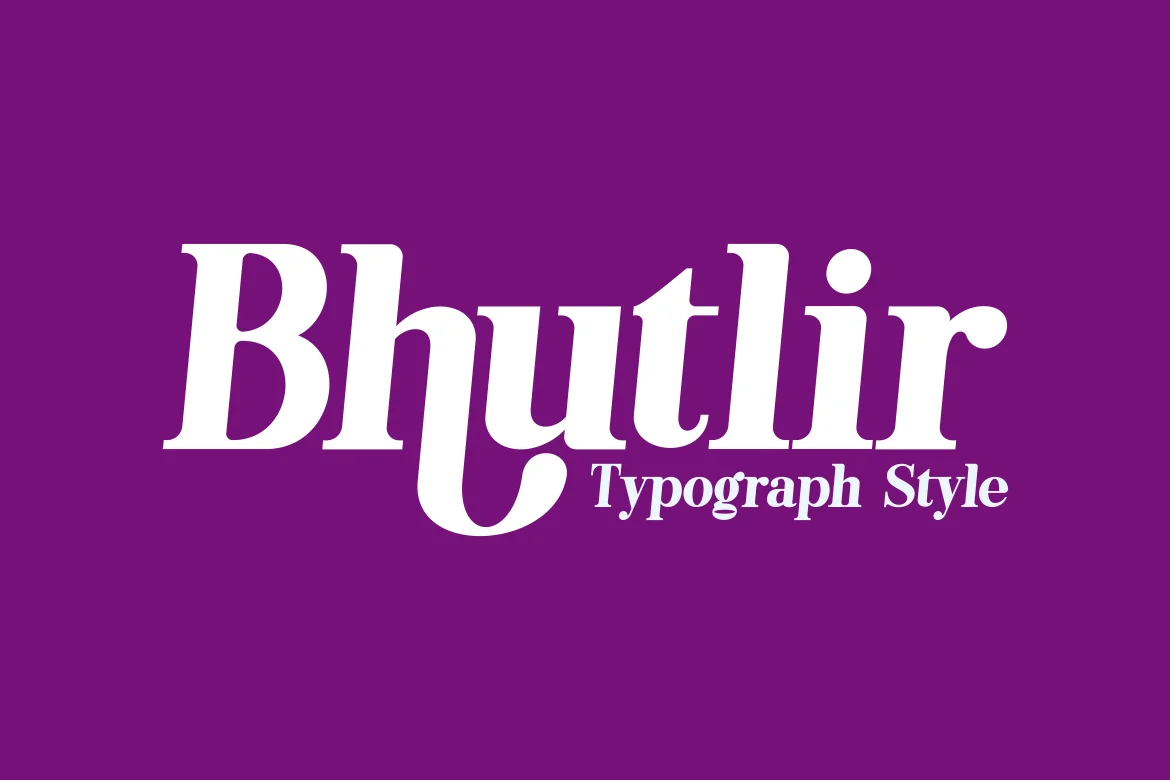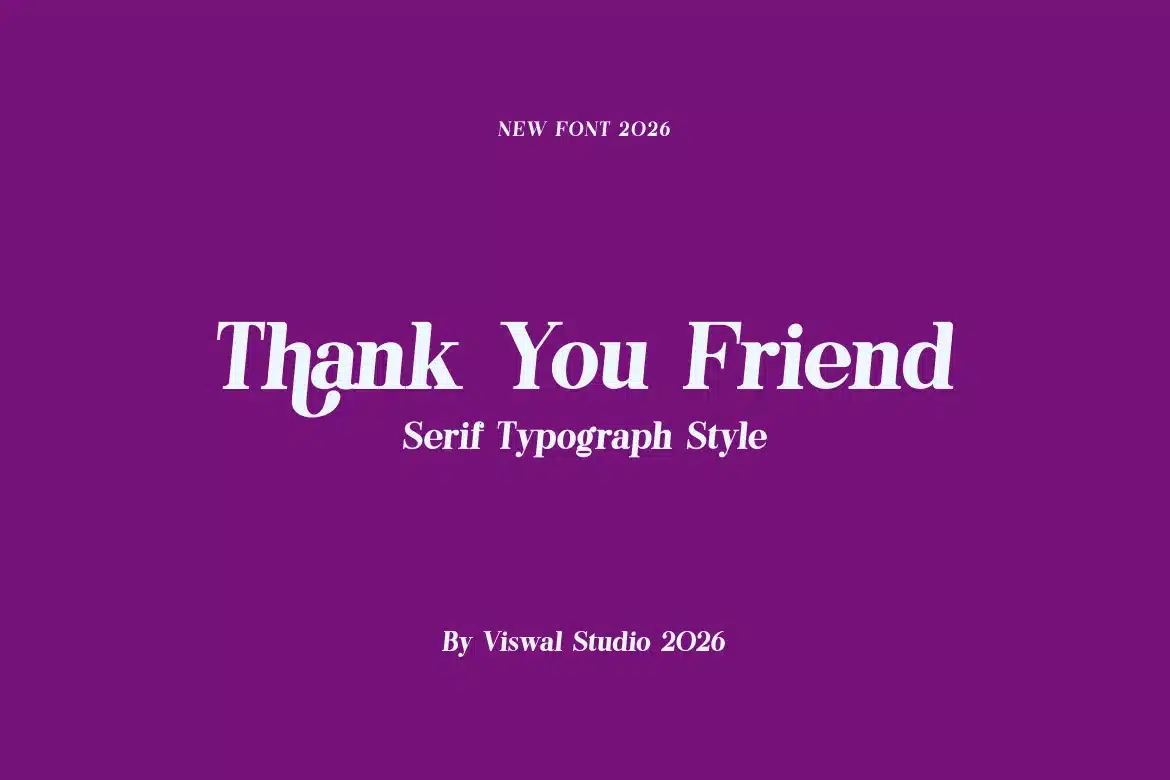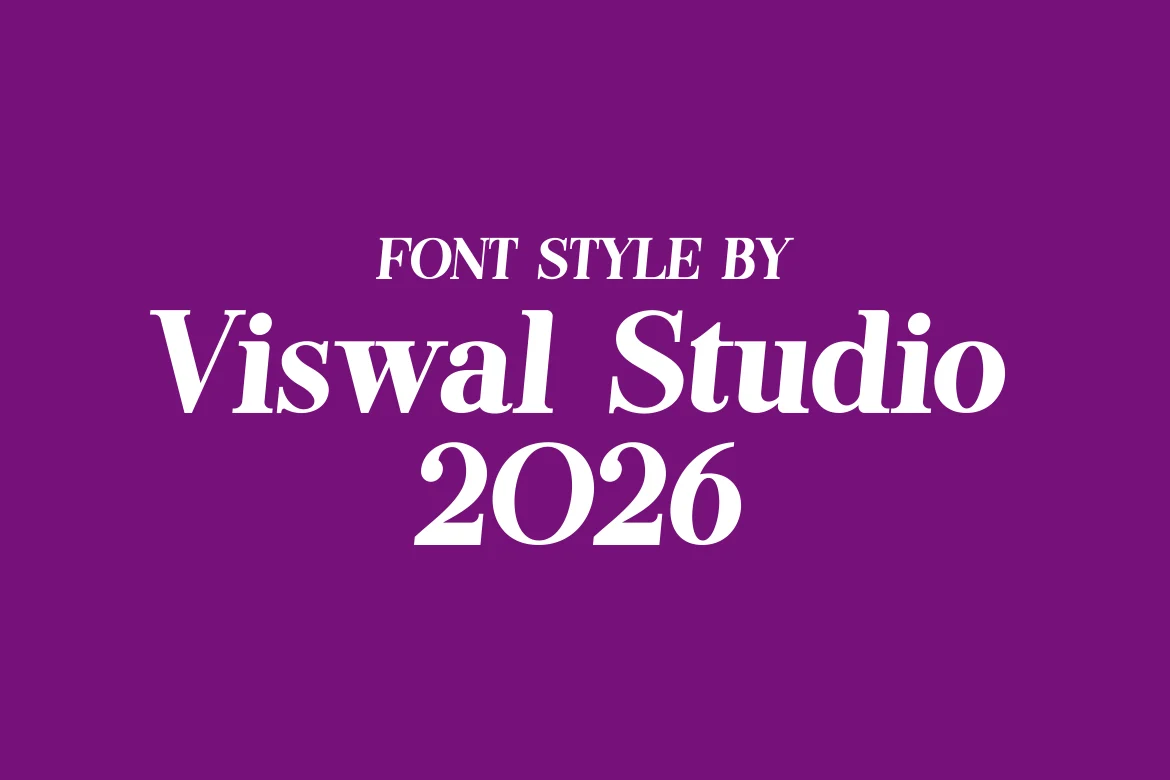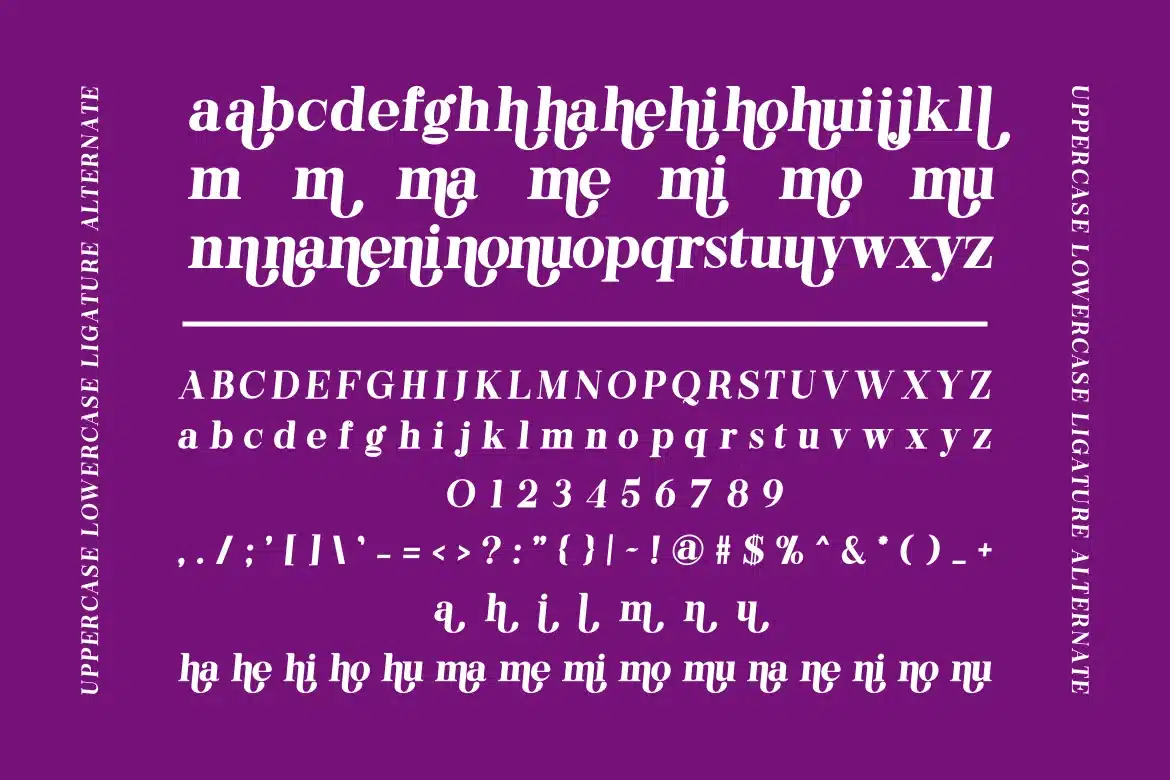
Bhutlir – Serif Bold Typeface Font
Presenting Bhutlir Is A Serif Bold Typeface.
Can Make It Easier To Convey The Message In Your Design. Font Is Suitable For Logo, Labels, Badge, Branding, Magazine, Poster, Title, Gigs, Covers And Etc. Our Fonts Have Uppercase & Lowercase, Numeral & Punctuation, And Opentype Features. For Amazing Designs You Can Mix With Other Fonts As A Complement.